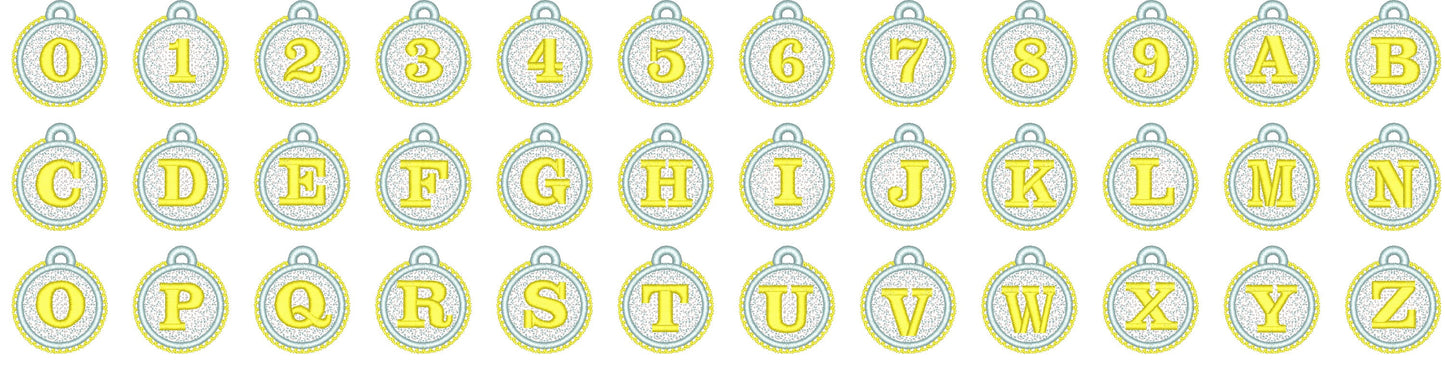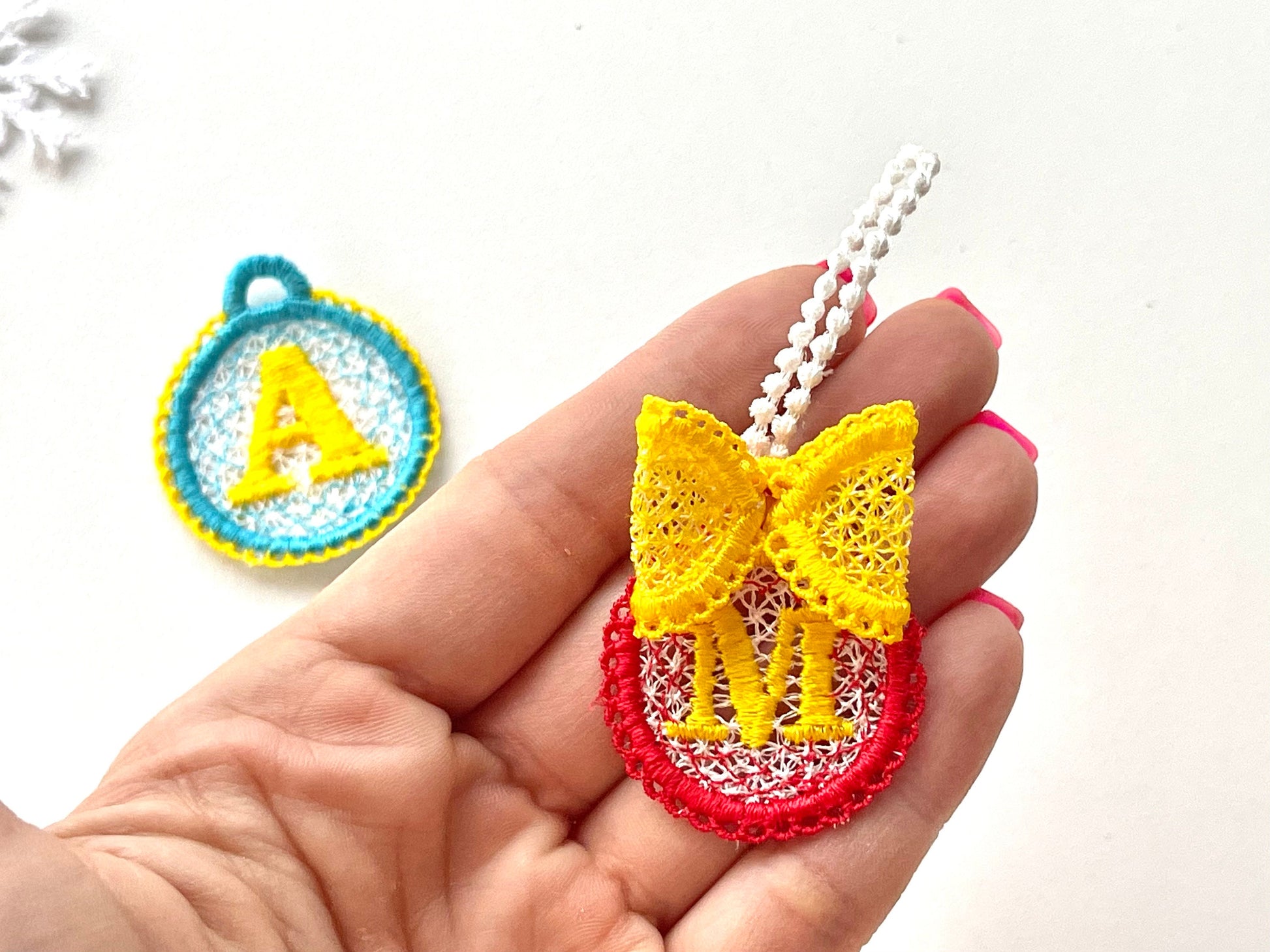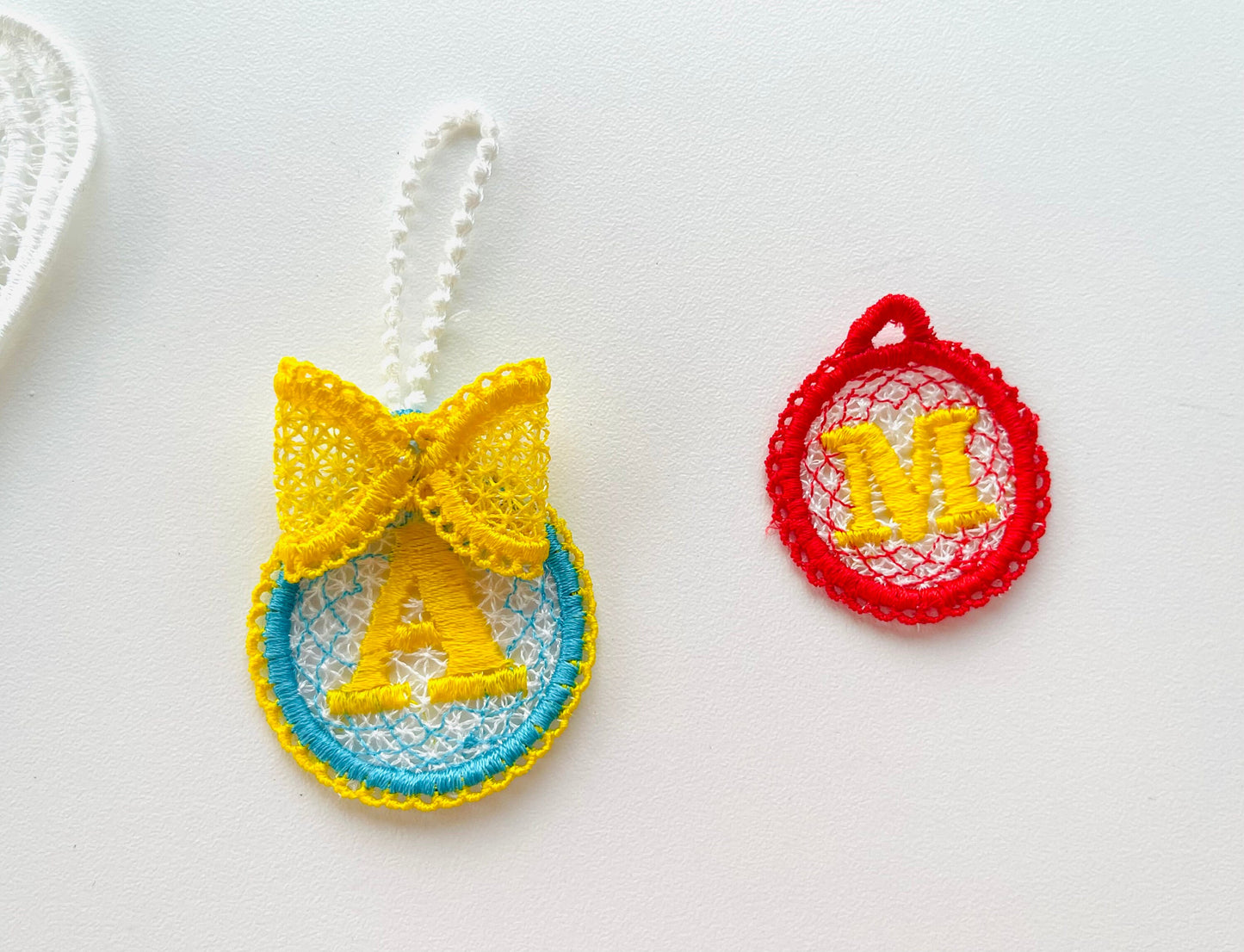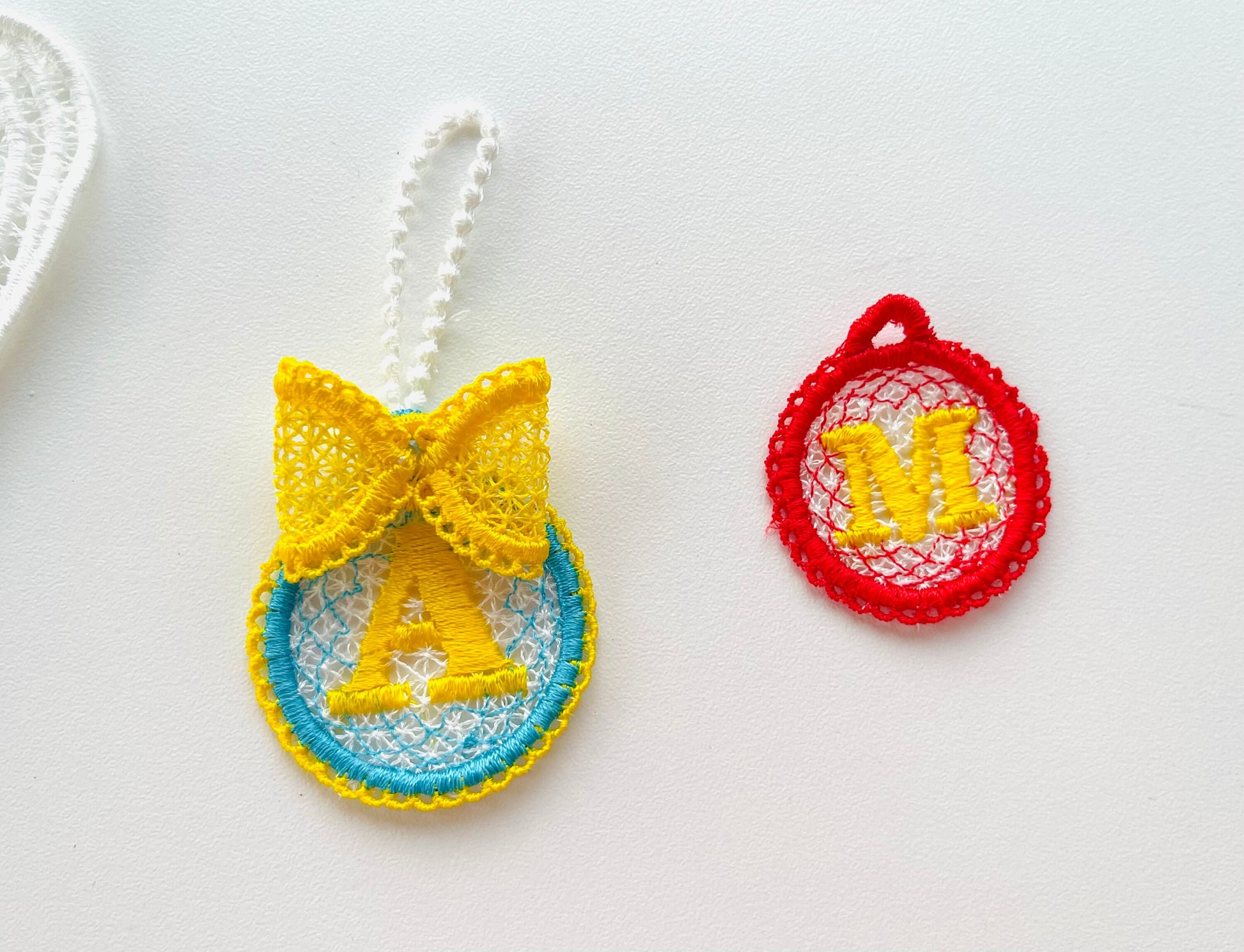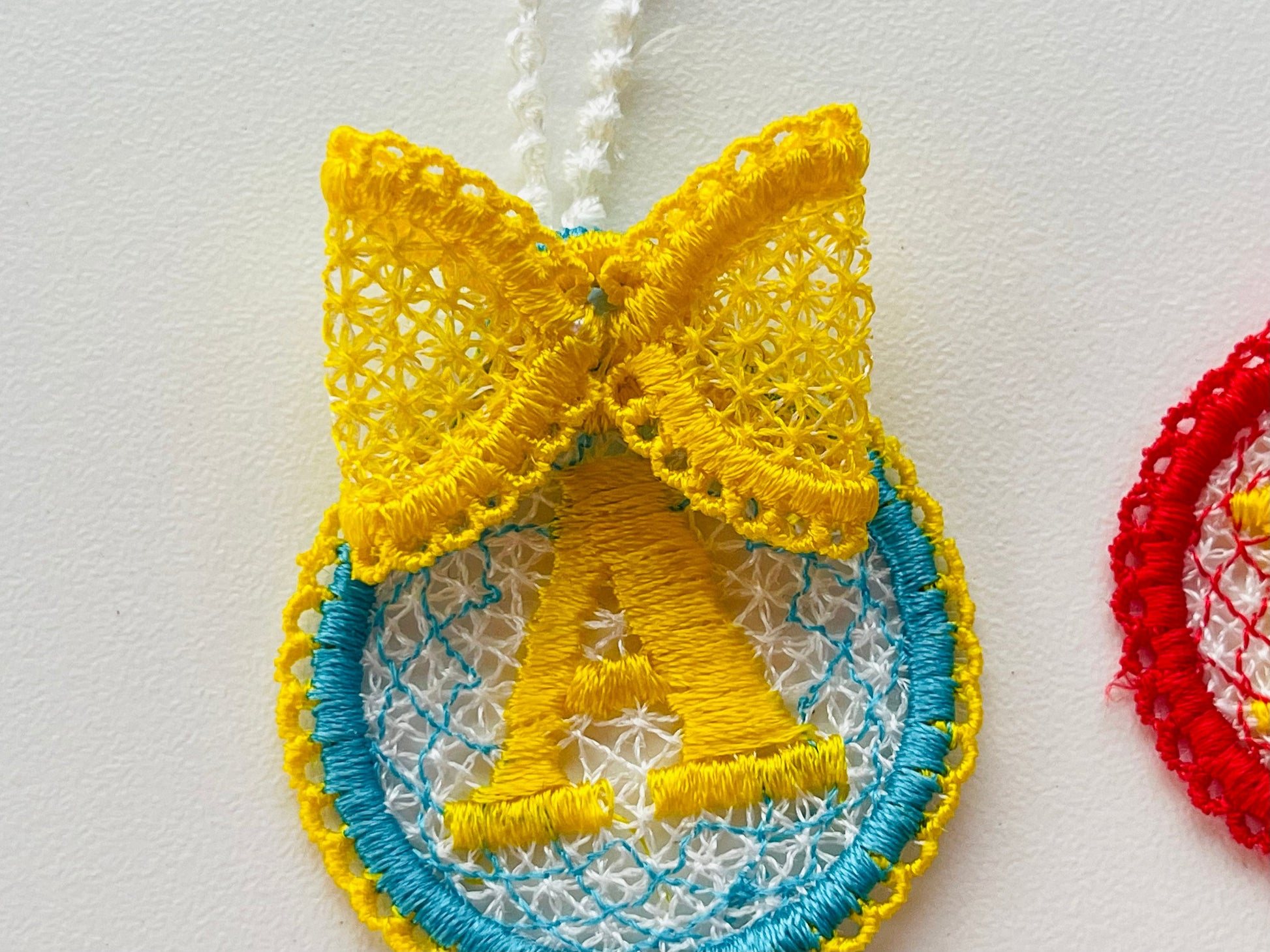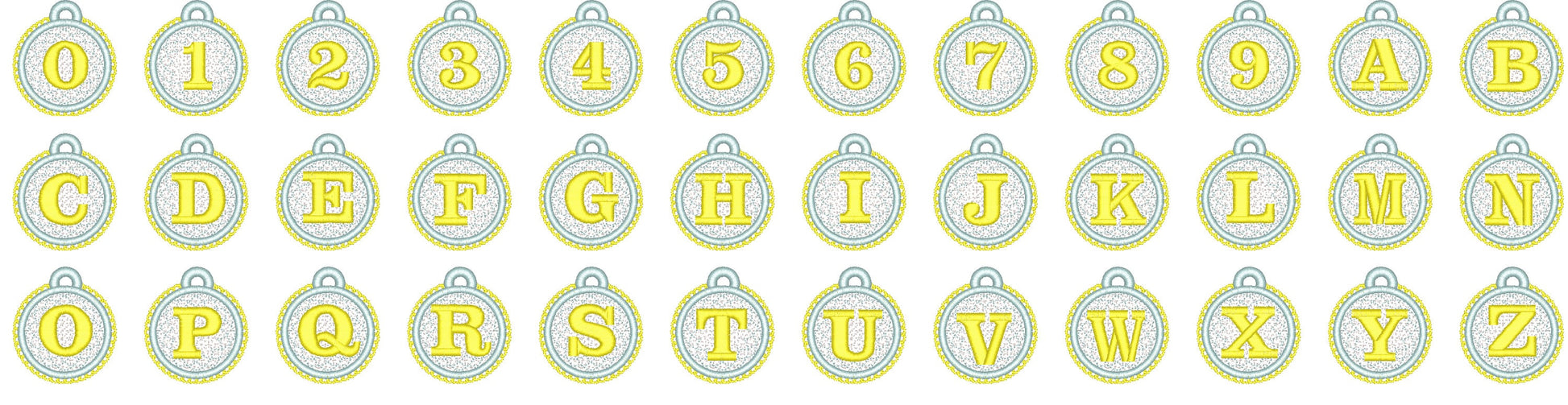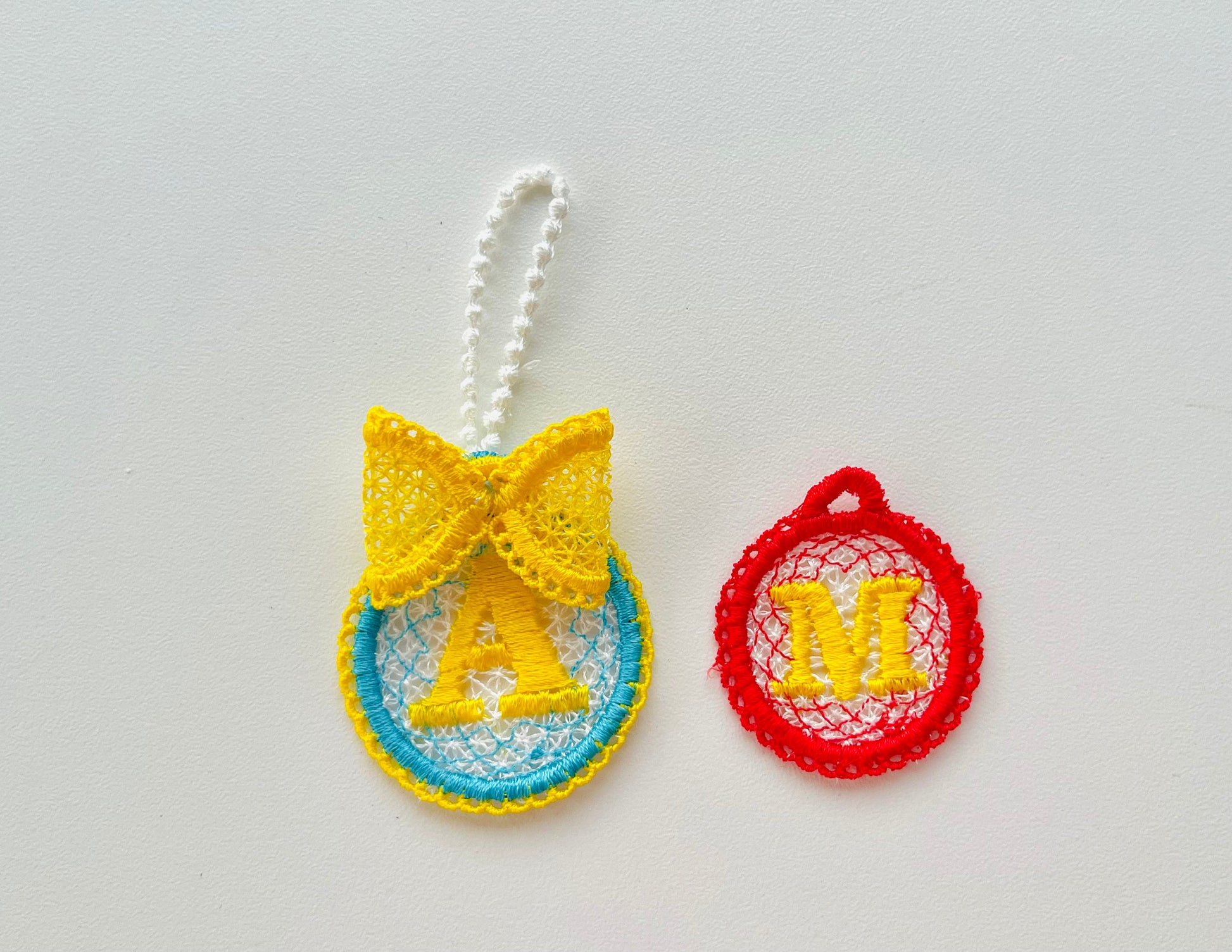
Or click to open the linkLace Circle Font Monogram delicate FSL freestanding lace Hanging Monogram personalized gift tag initial letters machine embroidery designs
Uppercase A-Z and numbers.
Stitch count for "A" size 2 inches - 4334.